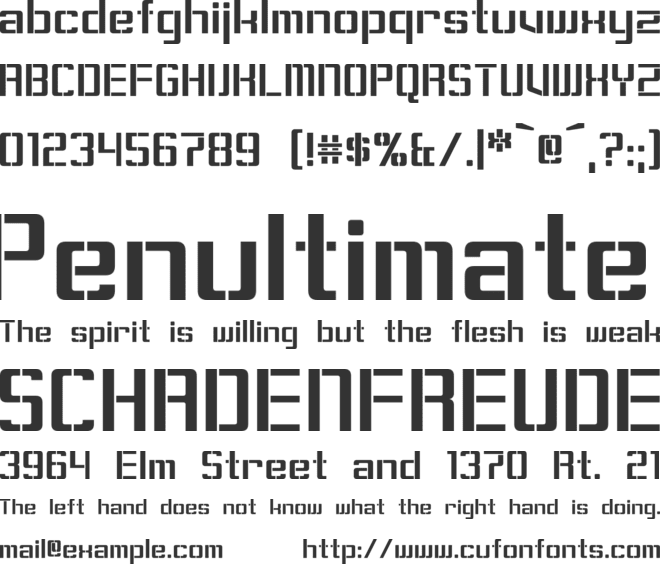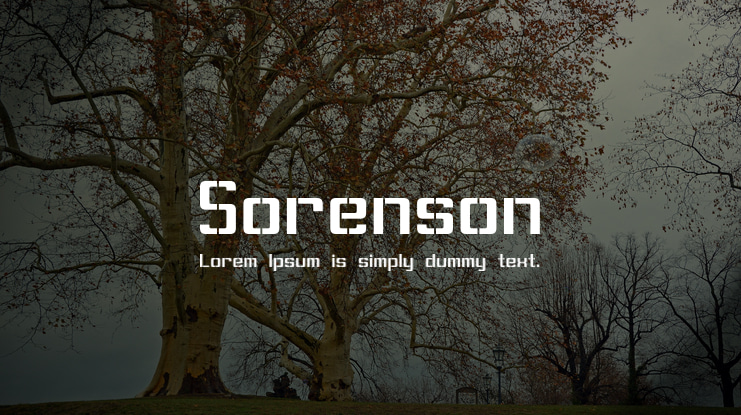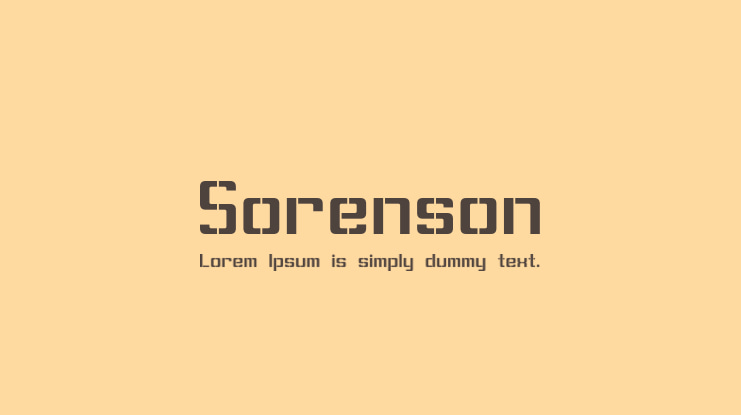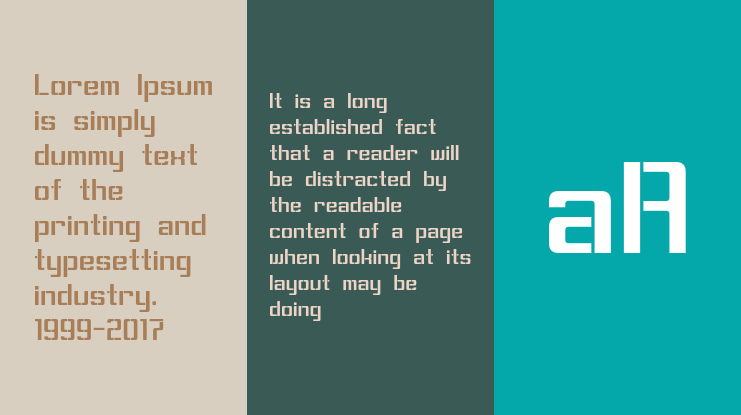
Sorenson Font Family
This is a tall, technological look with a minor 'stencil' flavor. Includes full alphabet, extended punctuation, euro. Includes italic version.